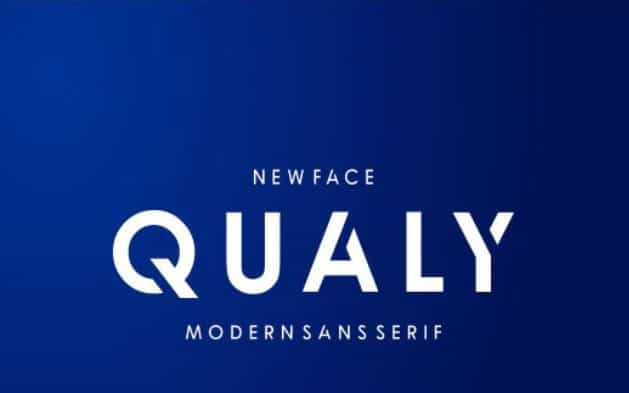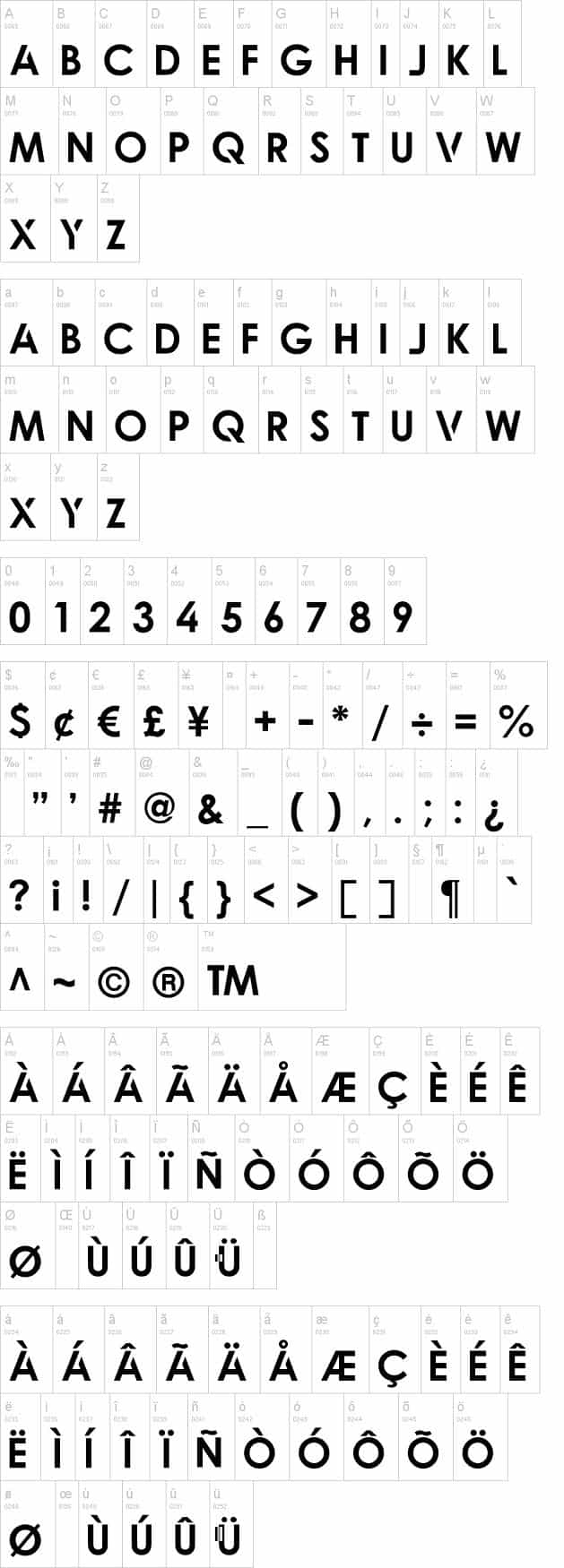
This is a brand new sans serif font going by the name Qualy. The font is elegant and clean, the text is clear and yet it looks pretty. This font is suitable in the creation of business cards, logo for a corporate card, flyers, and posters among others.